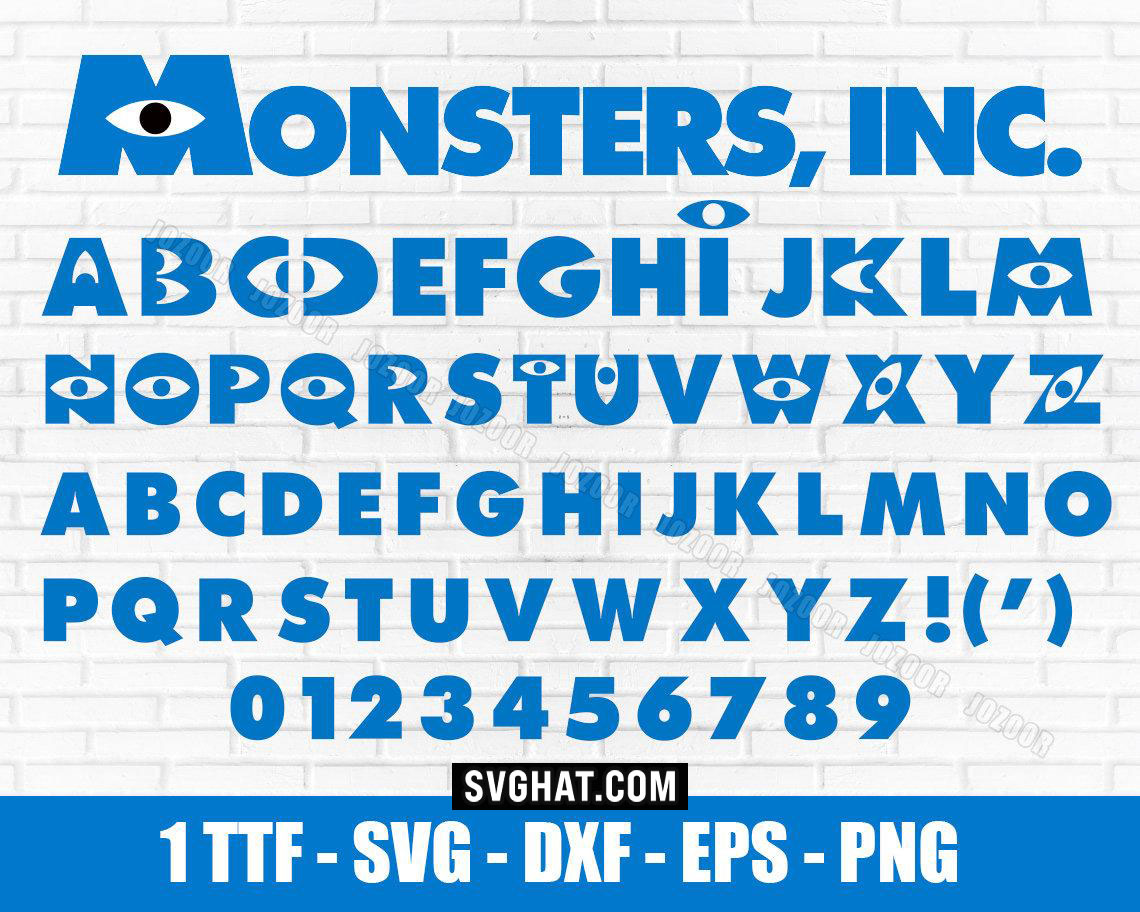
Disney Monsters Inc Fonts
Disney Monsters Inc Fonts. The corporation that sully and mike wazowski work for collects. You can use the monsters.
( ͡° ͜ʖ ͡°) designers; This listing is for twelve 2 in. Ziehn is a font based on the title logo from the movie monsters, inc.
Monsters inc font here refers to the font used in the poster title for the film monsters, inc. 4 free fonts related styles. Logo birthday labels, set to print on a 8.5 x 11 inches letter size photographic matte paper, card stock or full label sheet.
Great for email stationery or psp backgrounds. Ziehn is a font based on the title logo from the movie monsters, inc. The monsters inc font is a logo font that we have seen for the first time in monsters inc.